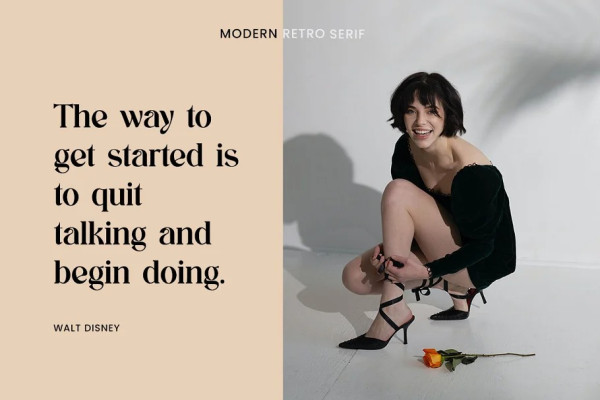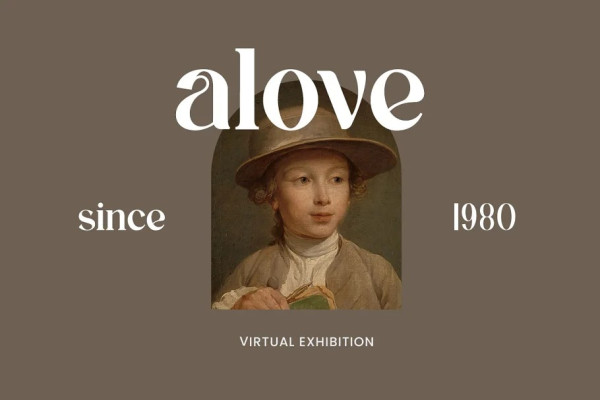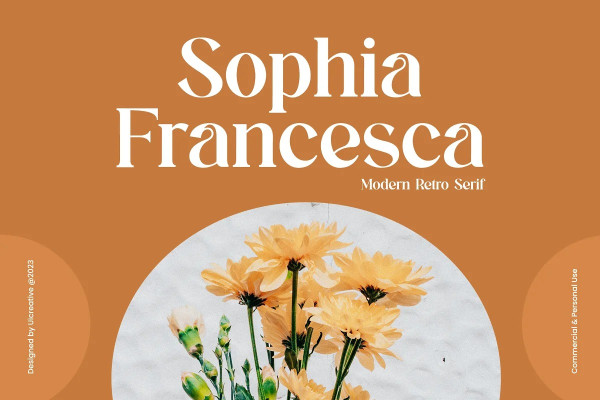
Sophia Francesca Font
Sophia Francesca Font – Modern Retro Serif Font. Modern Serif font that feels beautiful classy, elegant, and modern. This font is ideally suited for a wide variety of projects, such as signature, stationery, logo, wedding, typography quotes, magazine or book covers, website headers, clothing, branding, packaging design, and more. Also, fashion-related branding or editorial design displays both masculine and feminine qualities.